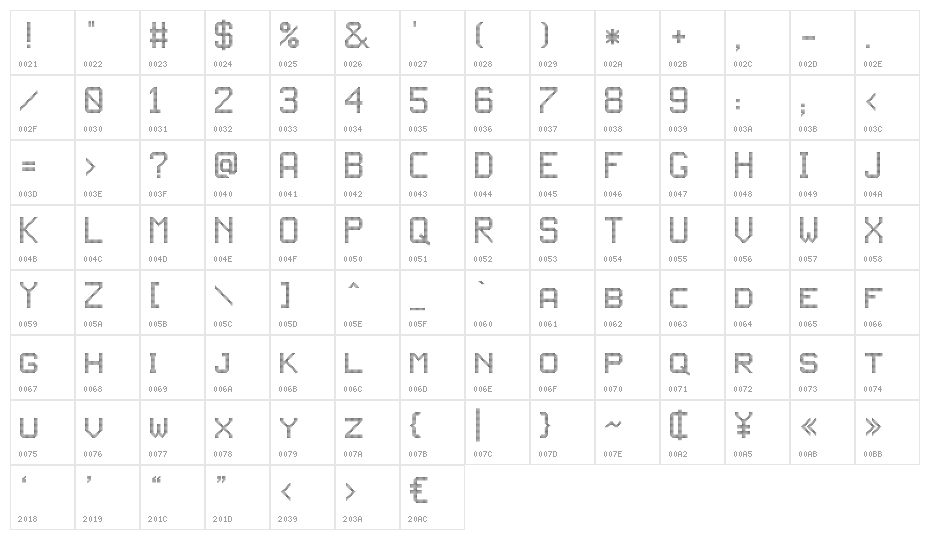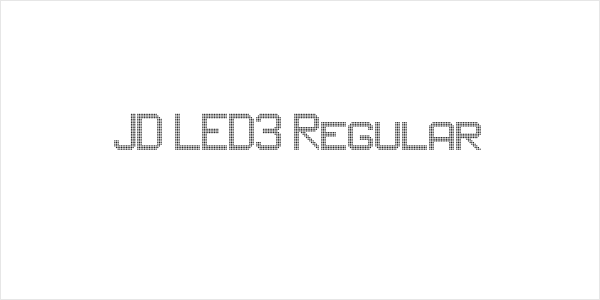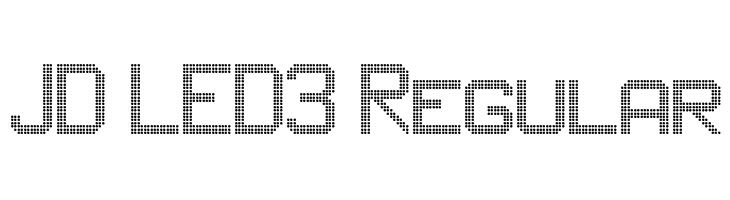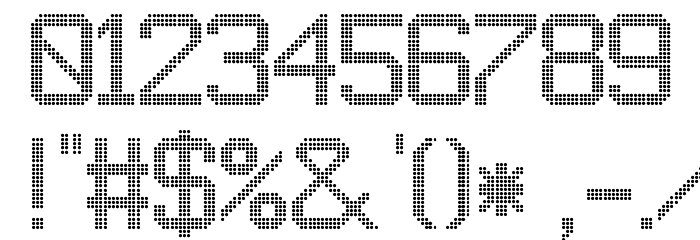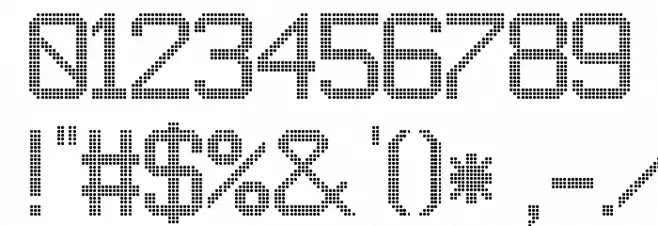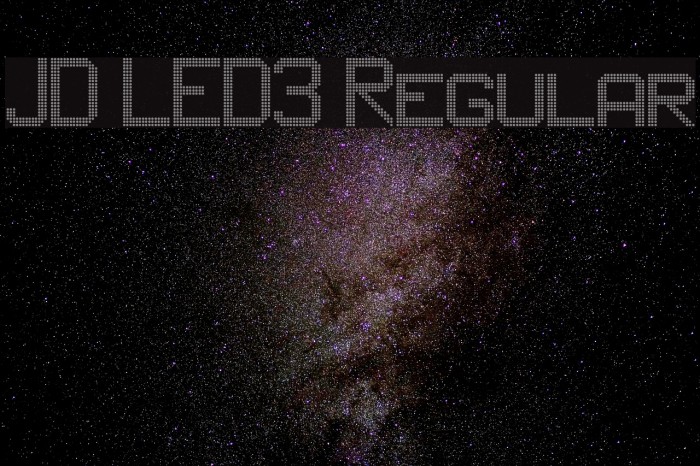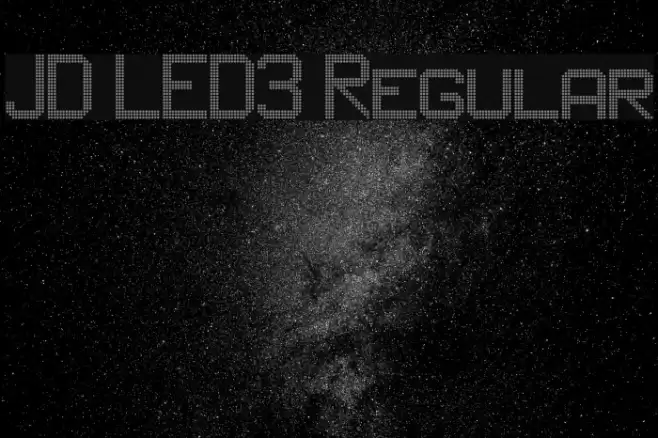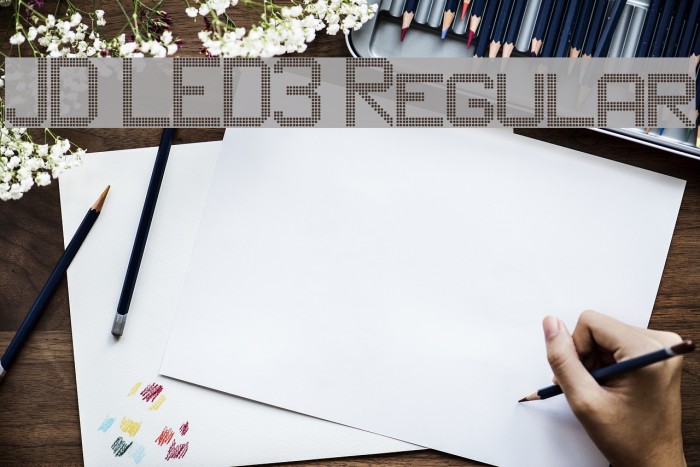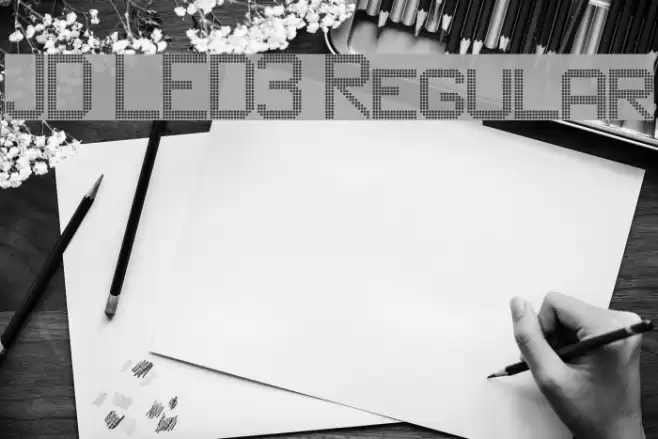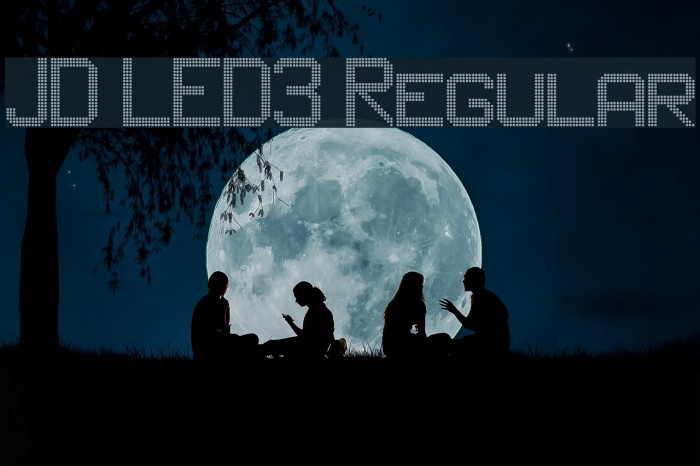
JD LED3 Regular Font
JD LED3 Regular Description
This font features a unique dot matrix design, reminiscent of LED displays. Each character is composed of small, evenly spaced dots that form the outlines of letters and numbers, giving it a digital and modern appearance. The uniformity of the dots creates a consistent texture across all characters, making it highly legible and distinct. The font maintains a geometric structure, with straight lines and sharp angles, enhancing its futuristic and technological feel. It is particularly effective for conveying a sense of precision and modernity.
| Use Case | Headlines, Logos, Digital displays |
| Proposed Projects | Ideal for digital displays, tech-themed projects, electronic device interfaces, and futuristic branding. |